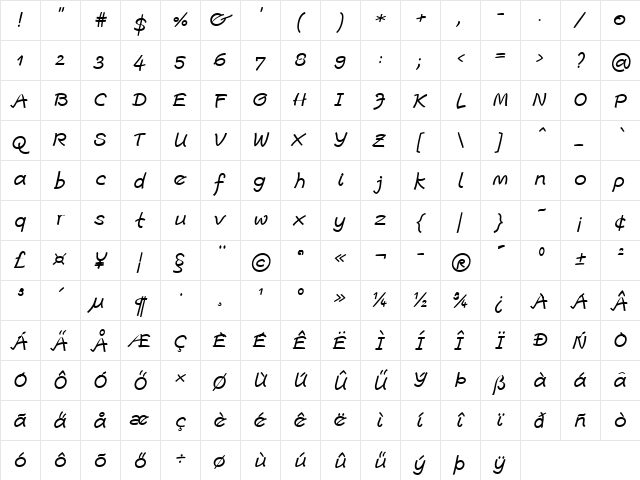
Escript LT Regular Italic
Design Context for Escript LT Regular Typeface
Escript LT Regular flows with the natural rhythm of handwritten lettering, making it ideal for designs that call for warmth and personal expression. Its slender proportions lend an understated elegance to any composition.
Font Pairing: Combine Escript LT Regular with a simple geometric sans for maximum contrast — the tension between flowing curves and clean structure is a classic typographic pairing.
Pro Tip: Use Escript LT Regular for short runs of text — names, titles, or taglines. Extended body copy in script faces tires the eye quickly.